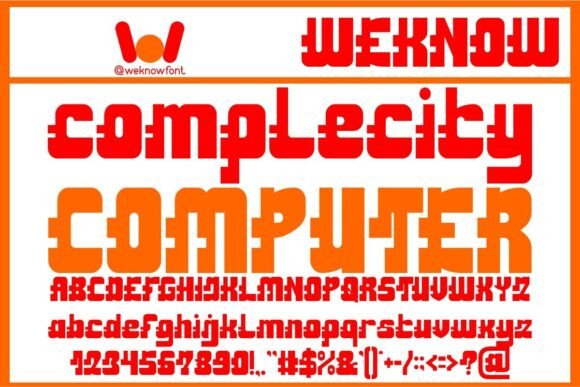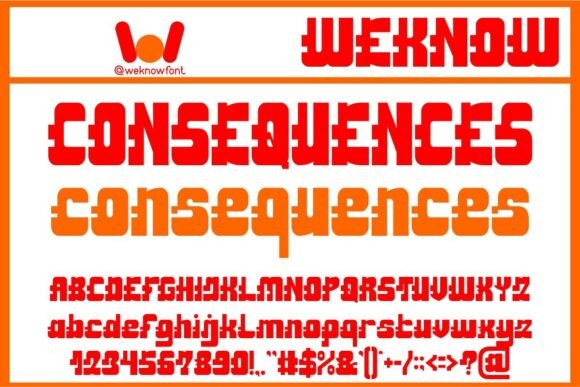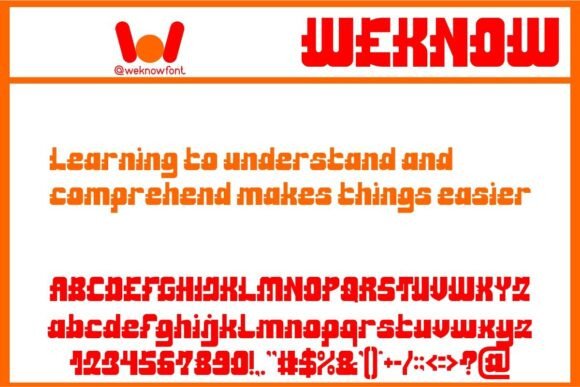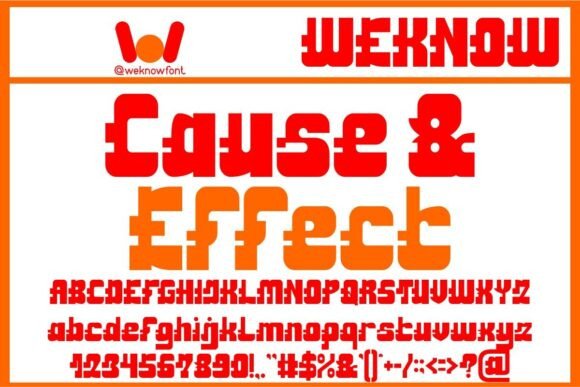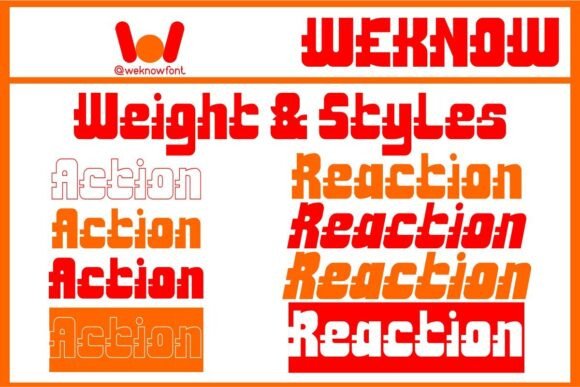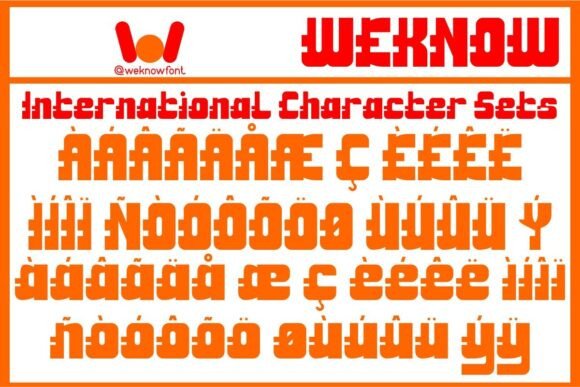
Introducing Action Reaction: The Ultimate Display Font for Creative Expression
In the world of typography, fonts play a crucial role in shaping the visual identity of a brand, product, or creative project. With the ever-growing demand for unique and attention-grabbing designs, the need for innovative fonts has never been more pressing. This is where Action Reaction comes in – an exciting new display font that embodies the perfect blend of techno, sci-fi, and futuristic elements, with a dash of whimsy.
The Birth of Action Reaction
Action Reaction is not just another font; it’s an experience. Its eclectic character is designed to add a spark to your creative projects, making it an ideal choice for those who dare to be different. Whether you’re a designer, craftsperson, or simply a creative enthusiast, this font is poised to take your work to the next level. With its unique fusion of styles, Action Reaction defies traditional categorization, making it a versatile tool for a wide range of applications.
Unleashing Creative Potential
So, what makes Action Reaction so special? For starters, its innovative design allows it to excel in various domains, from corporate and brand identities to dynamic industries like fashion. The font’s futuristic and techno elements give it an edgy appeal, perfect for projects that require a bold and modern aesthetic. At the same time, its whimsical twist adds a touch of playfulness, making it suitable for more creative and artistic endeavors.
Endless Applications
The versatility of Action Reaction knows no bounds. Here are just a few examples of how you can harness its creative potential:
- Logos and Logotypes: Create a lasting impression with a unique logo that showcases your brand’s personality.
- Headlines and Titles: Grab attention with bold and eye-catching headlines that demand to be noticed.
- Music Albums and Movie Titles: Add a compelling rhythm to your music album or movie title, setting the tone for an unforgettable experience.
- Game Visual Aesthetics: Give your game a competitive edge with a font that’s both modern and edgy.
- Magazine Covers: Stand out on newsstands with a bold and captivating title that showcases your magazine’s personality.
- Book Cover Design: Create a visual masterpiece with a font that complements your book’s narrative and genre.
- Comic Strip Narratives: Bring your comic strip characters to life with a font that’s both dynamic and expressive.
- Social Media: Elevate your social media presence with eye-catching graphics and typography that reflect your brand’s personality.
- Web-Based Design Projects: Use Action Reaction to create stunning web designs that leave a lasting impression on your audience.
Why Choose Action Reaction?
With so many fonts available, why choose Action Reaction? The answer lies in its unique ability to balance contrasting styles, creating a visual language that’s both modern and timeless. Here are just a few reasons why Action Reaction stands out:
- Unique Character: Action Reaction boasts an eclectic character that’s unlike any other font.
- Versatility: Use Action Reaction across various applications, from print to digital media.
- Attention-Grabbing: This font is designed to grab attention, making it perfect for headlines, titles, and logos.
- Customizable: Experiment with different styles, colors, and effects to make Action Reaction your own.